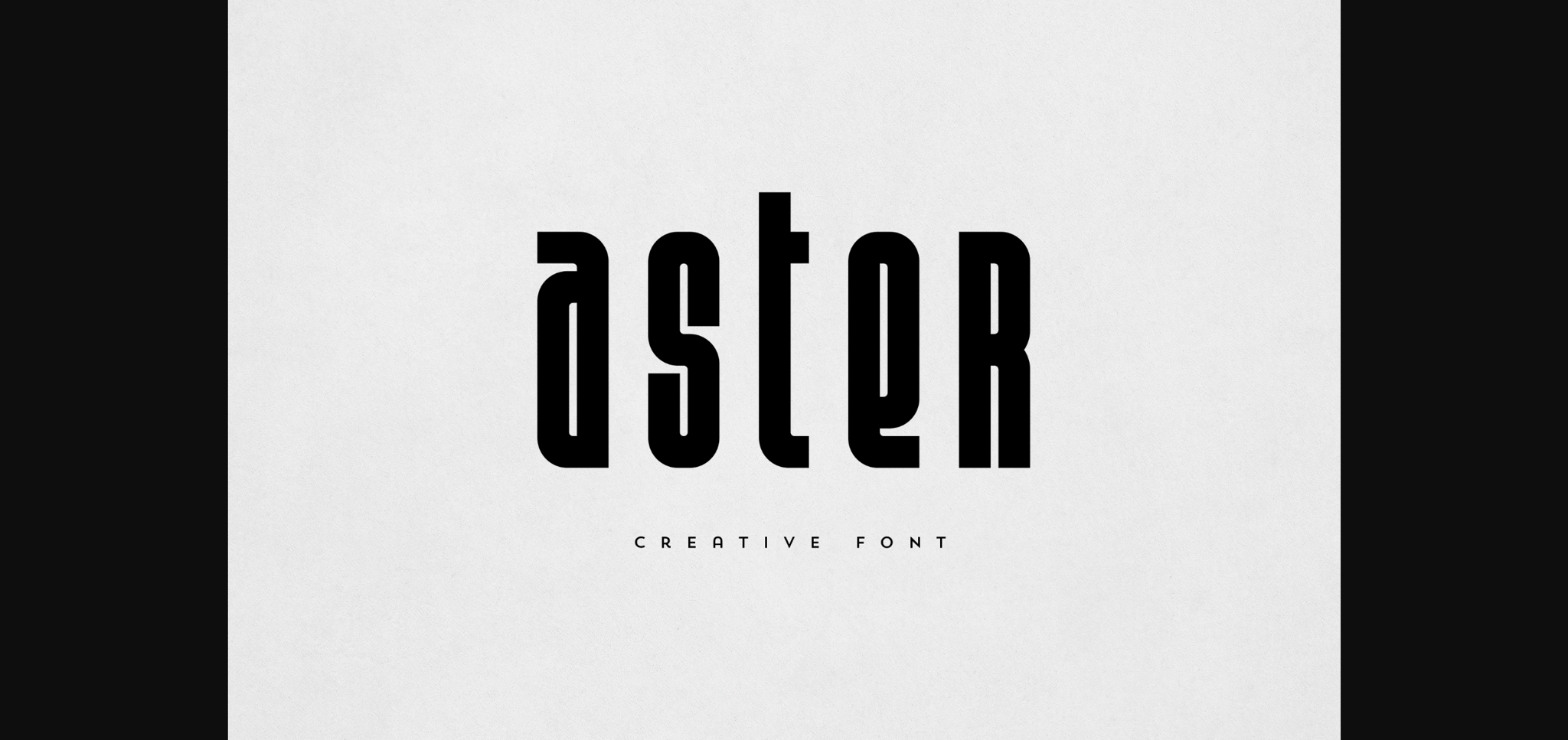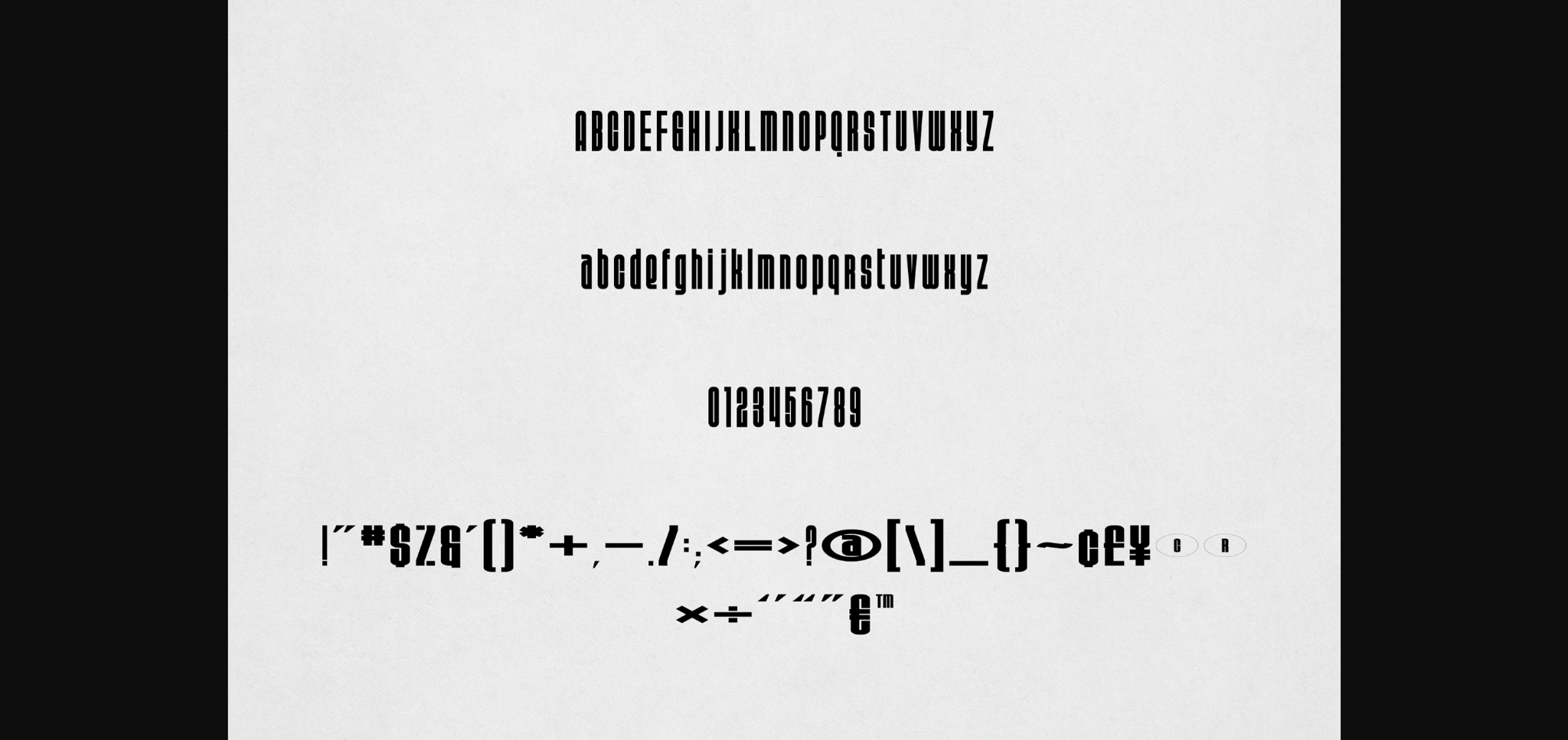
About Aster Font
Aster is an elegant and versatile sans serif font that will make your typography truly unique! It will enchant every logo, branding, headline, or plain text!